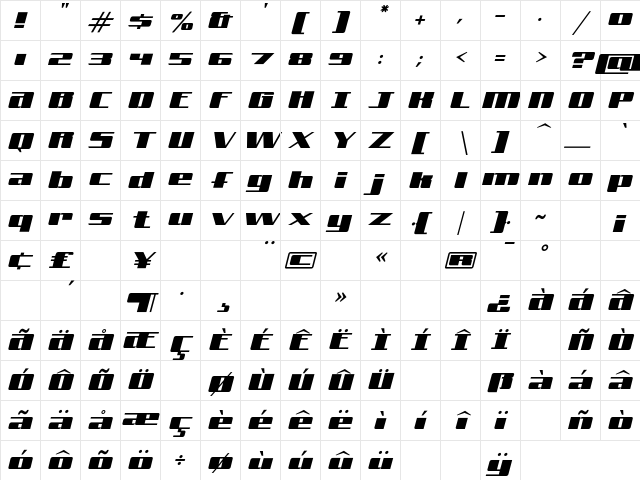
FreeLine Cruiser Free Font
FreeLine Cruiser
Complete FreeLine Cruiser glyph index. Displaying only characters natively supported by FreeLine Cruiser font.
Design Context for FreeLine
FreeLine is a composed and adaptable typeface that performs quietly and consistently across a wide range of design contexts.